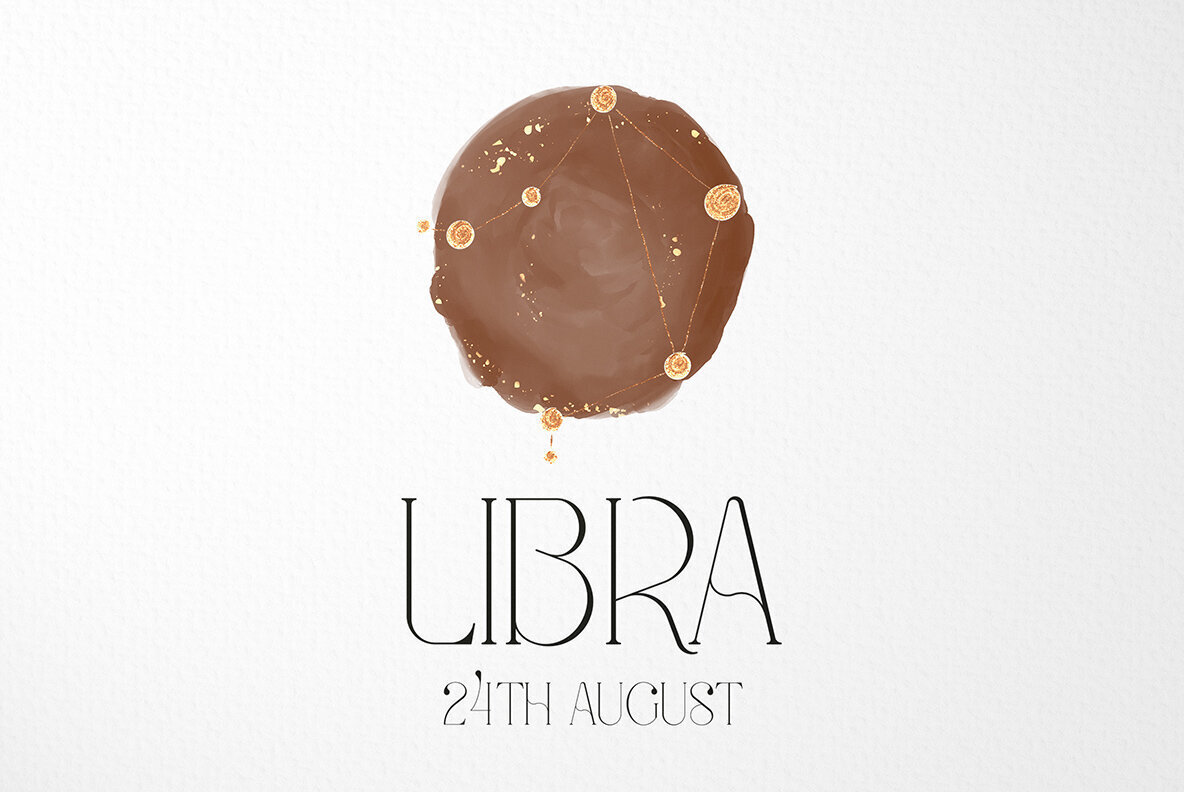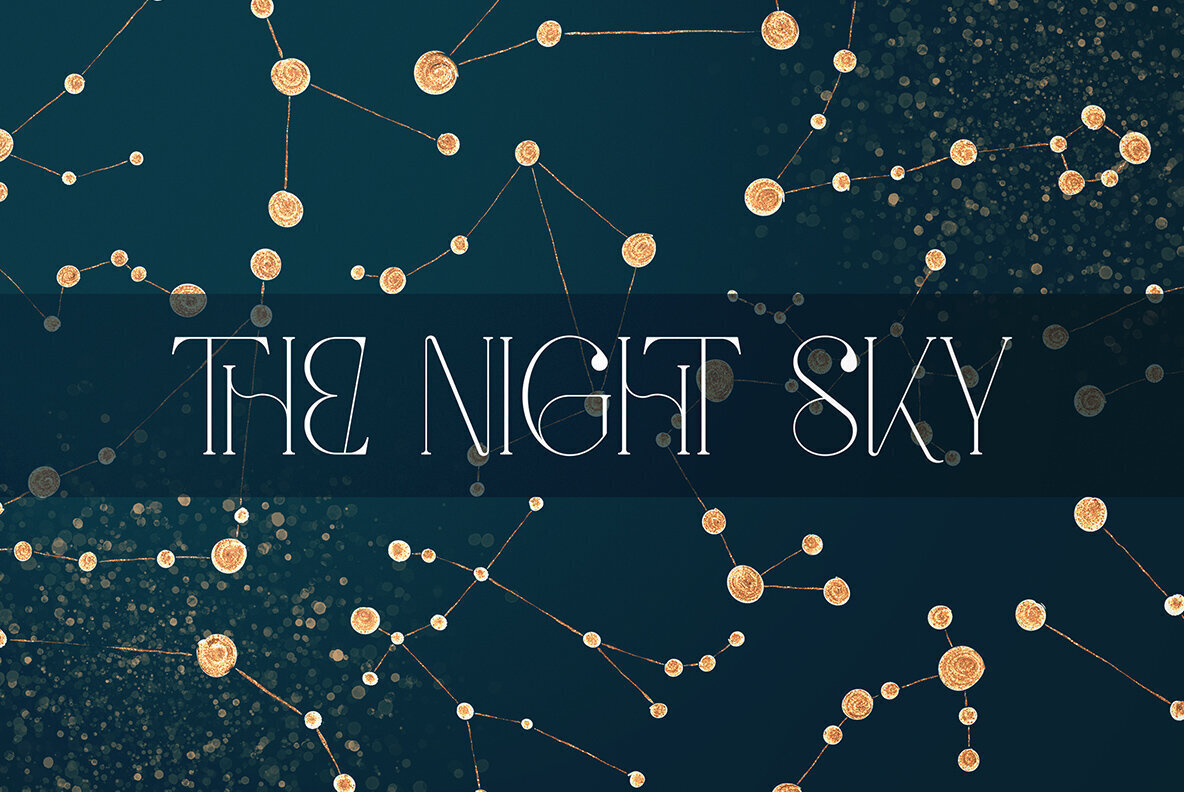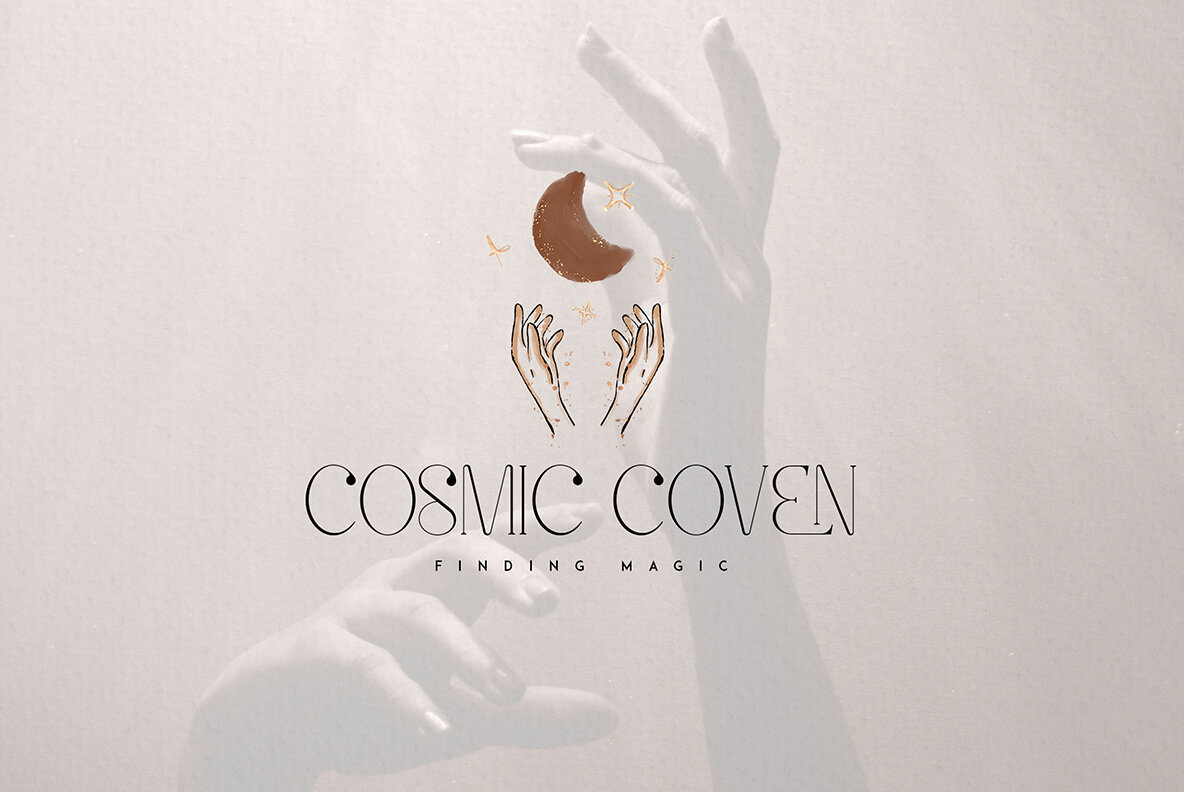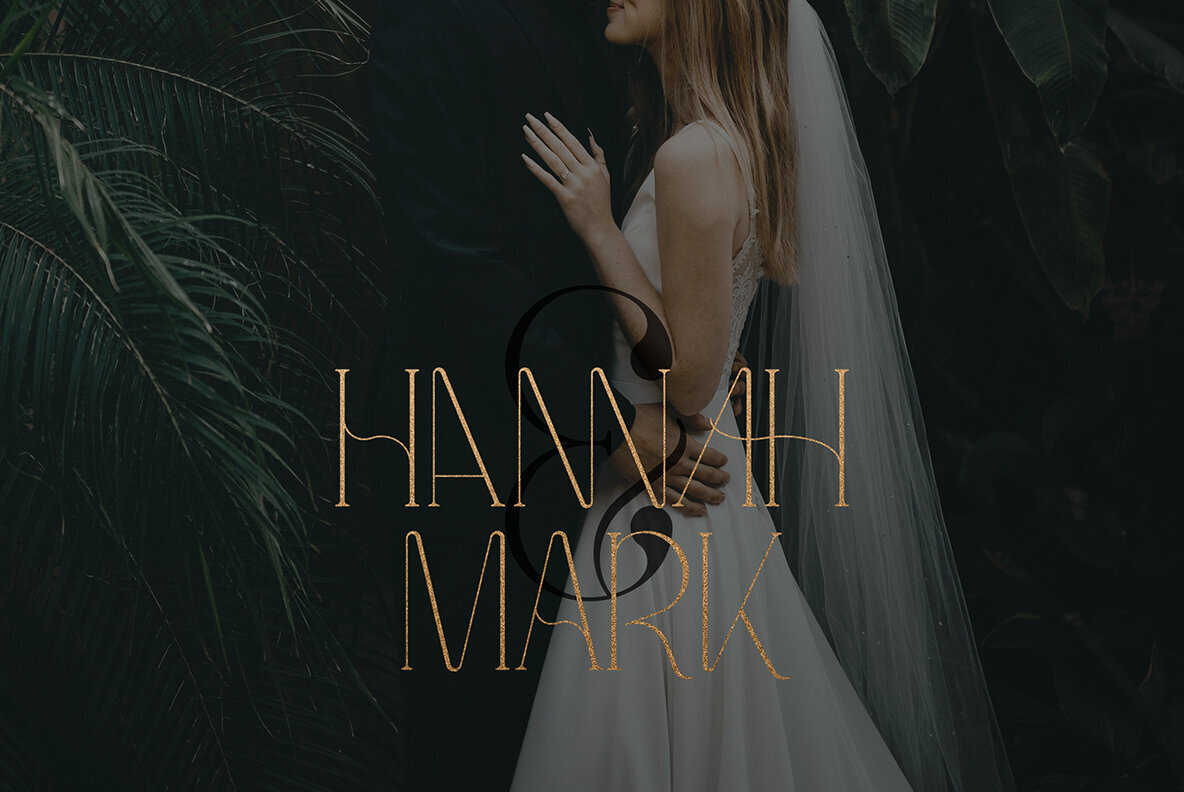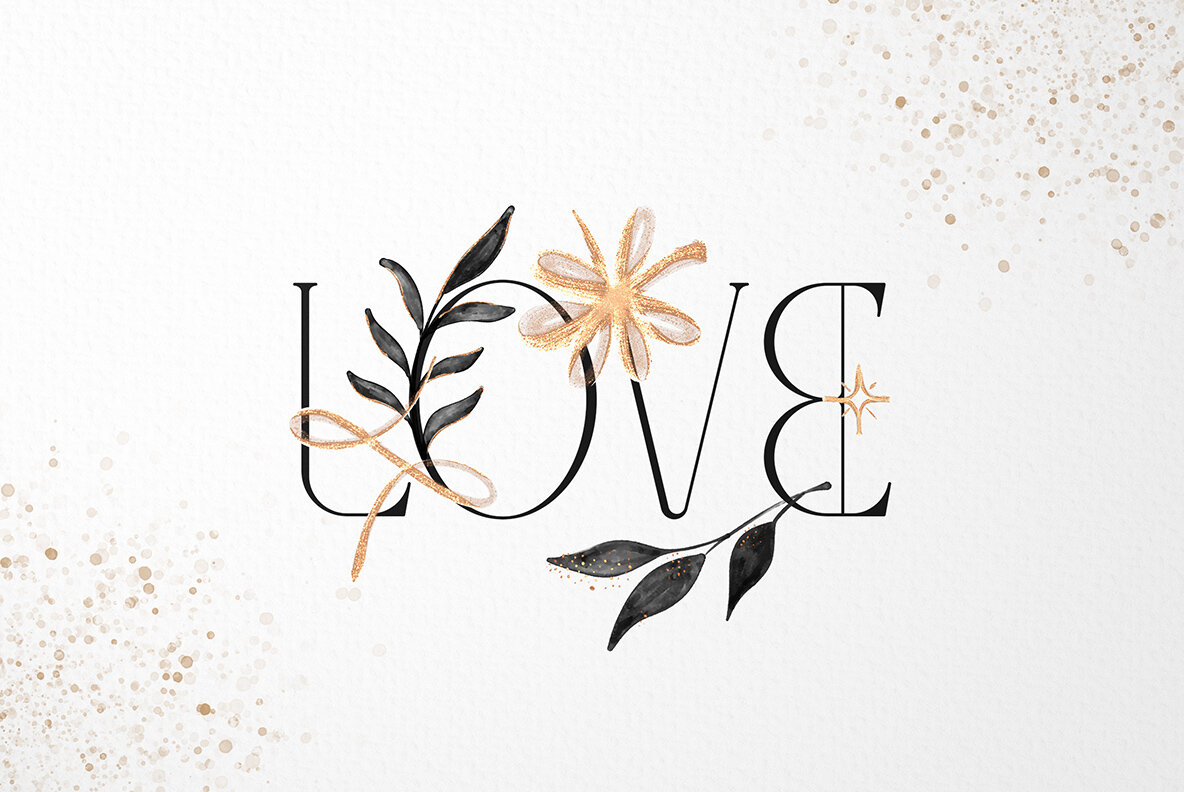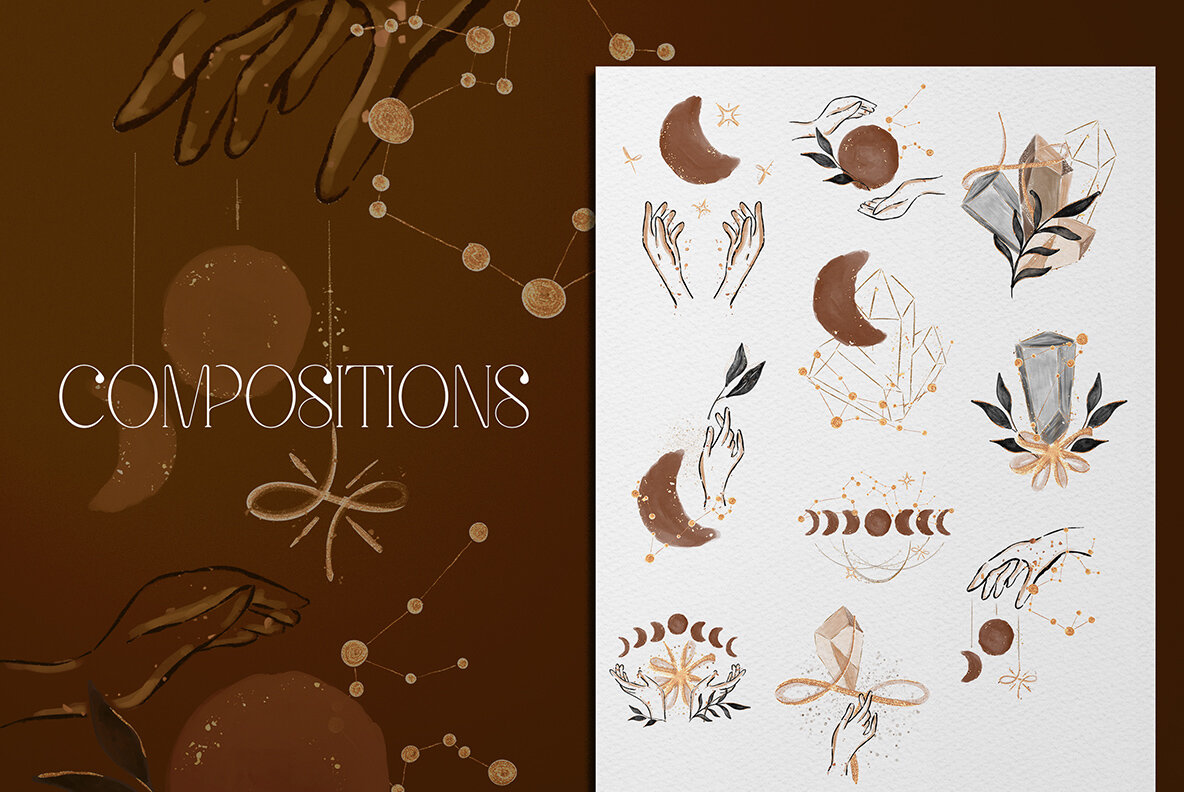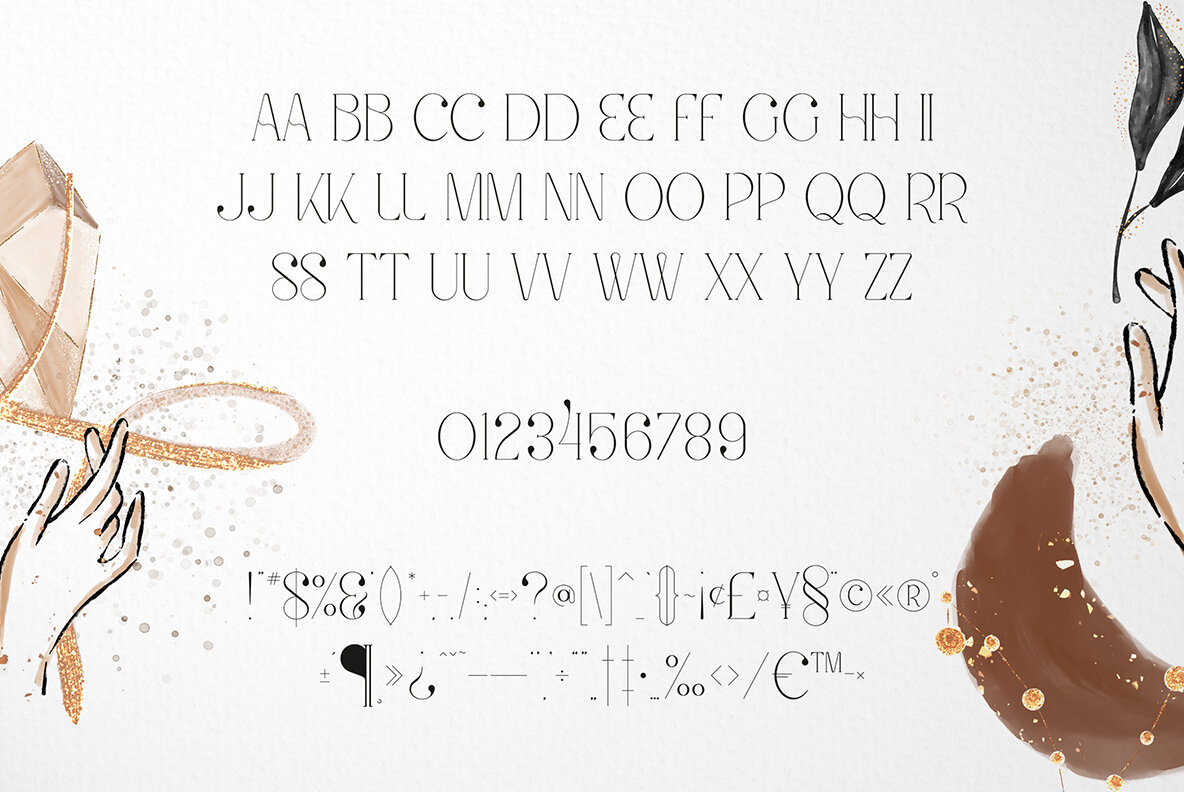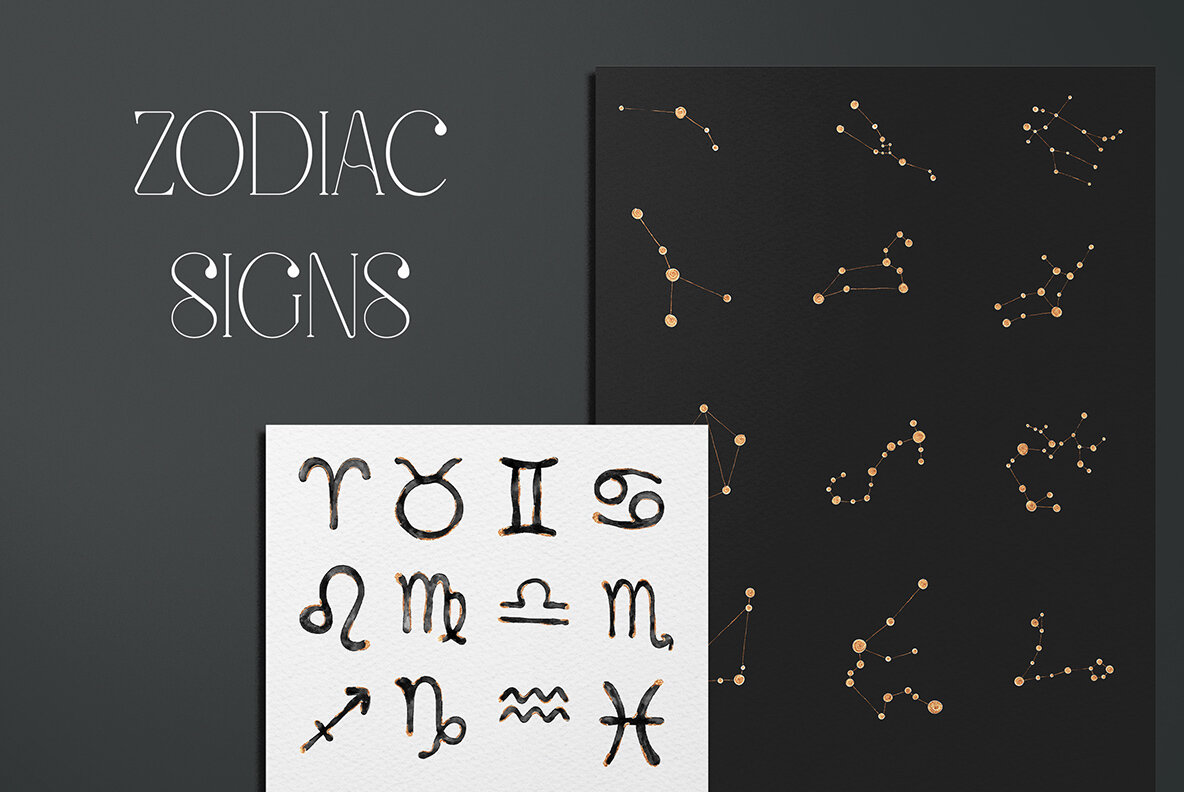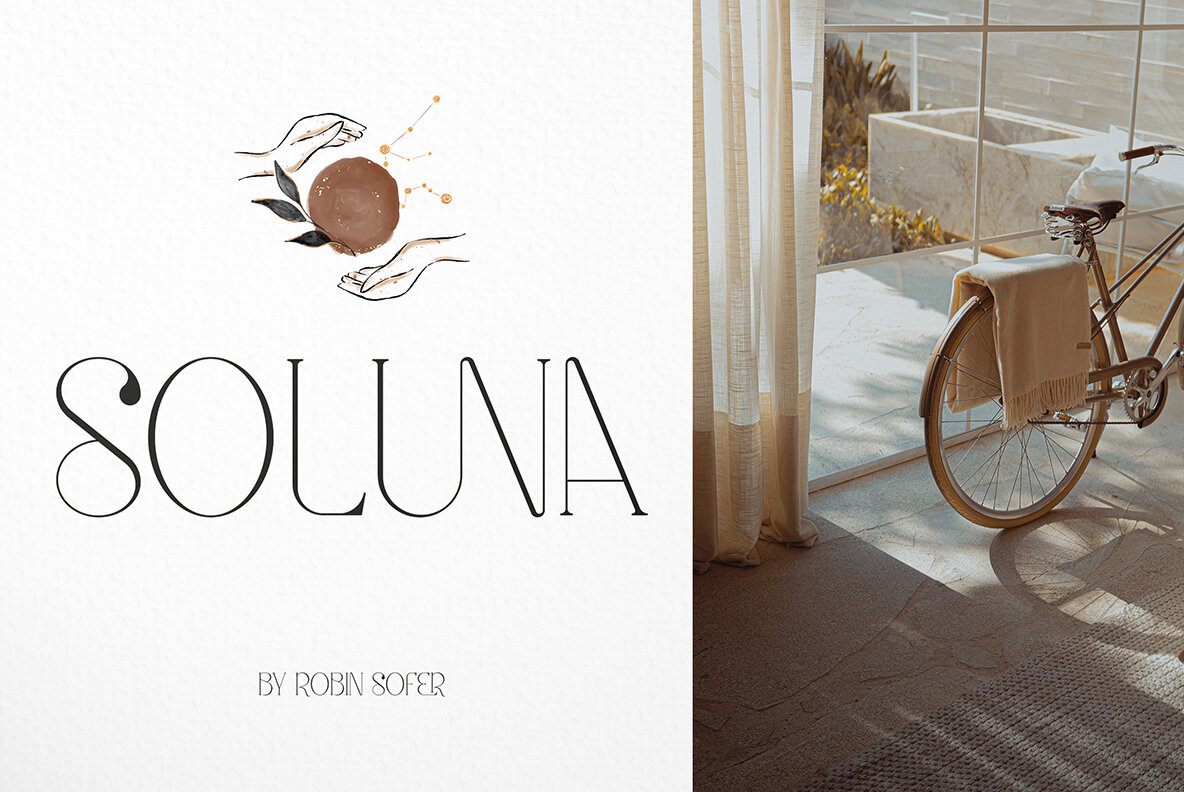
Meraki Font
Meraki Font and Bonus Element Pack (1 font)
Meraki is an inventive display font that caters to an expansive range of linguistic needs, including both Latin and Cyrillic alphabets. Ideal for designers seeking to infuse typographic work with a distinctive touch, Meraki offers impressive multilingual support across 95 languages. This font is replete with alternate and ligature glyphs, complemented by astral elements that make your typography truly stand out. Whether you are crafting a brand identity or creating an artistic piece, Meraki and its bonus graphic elements elevate your design capabilities with an avant-garde edge.Meraki: Versatile Display Font with Astral Flair
Astral Graphic Elements
Signs – Embedded for astrological-themed projects.